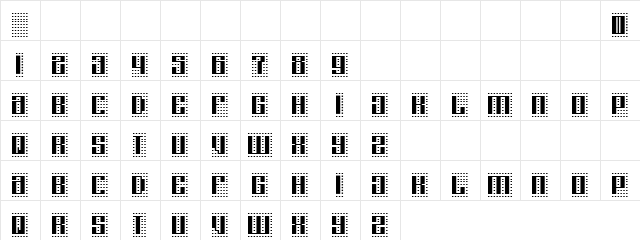
Piloted Maggy Regular
Design Context for Piloted Maggy Typeface
Piloted Maggy is a composed and adaptable typeface that performs quietly and consistently across a wide range of design contexts.